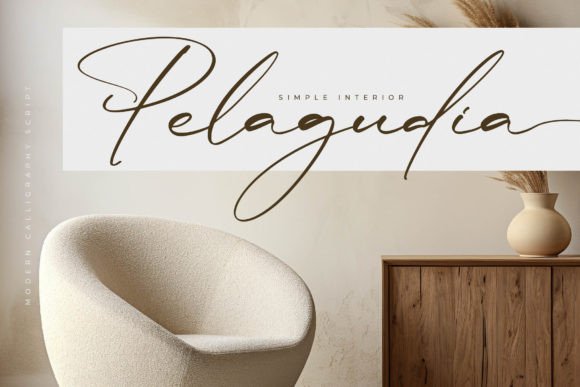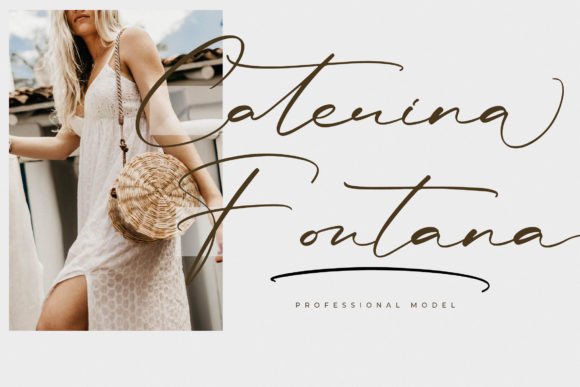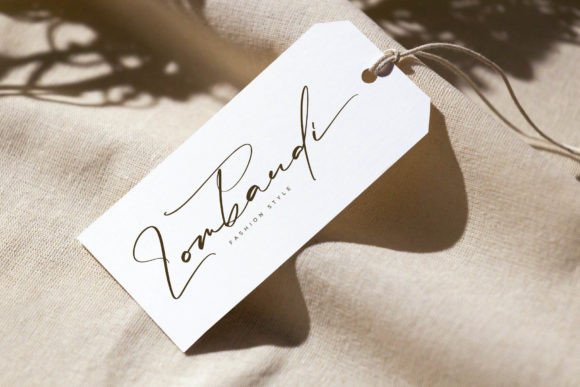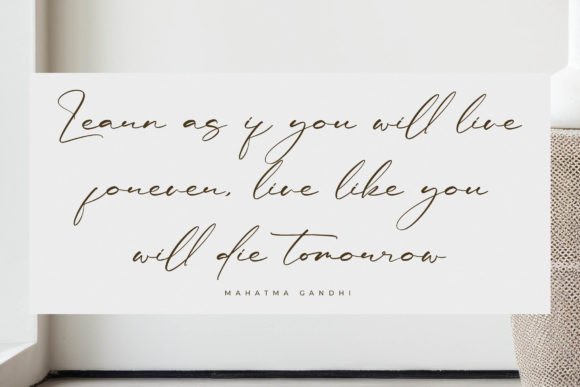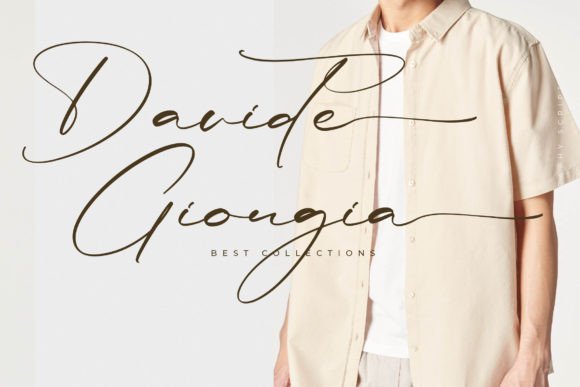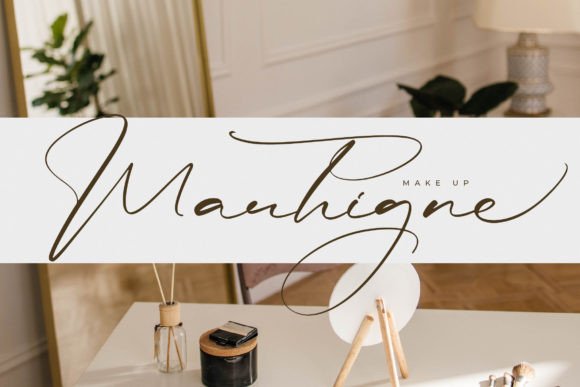
Introduction to Rulligedro Font
Do you ever find yourself lost in the world of typography, searching for that perfect script font to elevate your next creative project? As designers, we’ve all been there – staring at a blank canvas, desperate for inspiration. It’s in these moments that a beautiful font like Rulligedro Font can be a game-changer. With its luxurious feel and high-quality design, this script font is sure to add a touch of sophistication to any project.
Rulligedro Font is a design resource that’s perfect for creative projects, from logos and branding to product packaging and homeware designs. Its transparent background and high-quality design make it an ideal choice for designers who want to add a touch of elegance to their work. Whether you’re working on a free download or a paid project, Rulligedro Font is a valuable asset that’s sure to impress.
Key Features of Rulligedro Font
- High-quality design for creative projects, ideal for use as a design resource
- Comes with a transparent background, making it versatile for various design applications
- Supports various languages, making it a great option for international design projects
- Vector-based design, ensuring scalability and crisp resolution up to 300 DPI
- Designed to be used for a wide range of creative projects, from branding to publishing
Honest Review: Rulligedro Font
One of the standout features of the Rulligedro Font is its high quality. The font is crisp and clear, making it perfect for a wide range of creative projects, from logos and branding to digital displays and print materials.
Here are some of the things that work well with the Rulligedro Font:
- ✨ Transparent background, making it easy to use on any design surface
- ✨ High-quality font files, ensuring a smooth and professional look
- ✨ Great for use in creative projects that require a unique and eye-catching font
- ⚠️ Limited character set, which may not be suitable for extended texts
- ⚠️ May not be as customizable as other fonts, which could be a drawback for some designers
Overall, I’m impressed with the Rulligedro Font and would recommend it to anyone looking for a high-quality font for their creative project. It’s a solid design resource that’s definitely worth checking out.
Experiment with different font sizes, colors, and styles to find the perfect look for your design. Use the font in combination with other design elements, such as images and shapes, to create a unique and eye-catching design.
Common Use Cases for Rulligedro Font
The Rulligedro Font is perfect for a variety of creative projects, including graphic design, branding, and digital art. You can use the font in logos, business cards, and other marketing materials to give your brand a professional and stylish look.